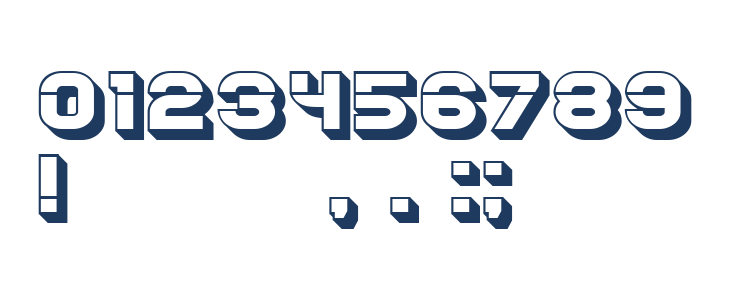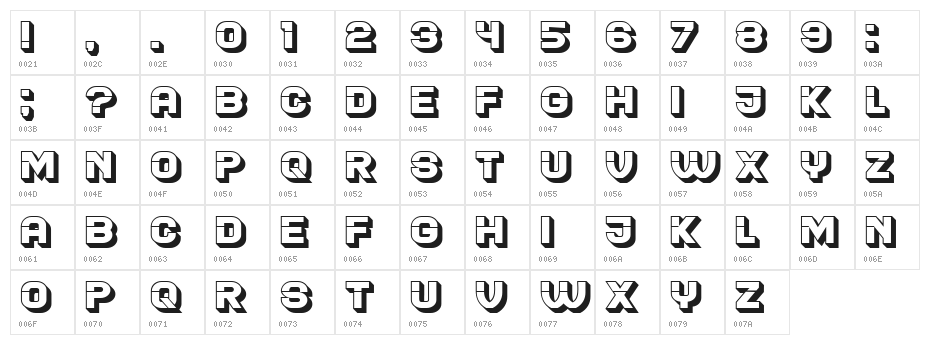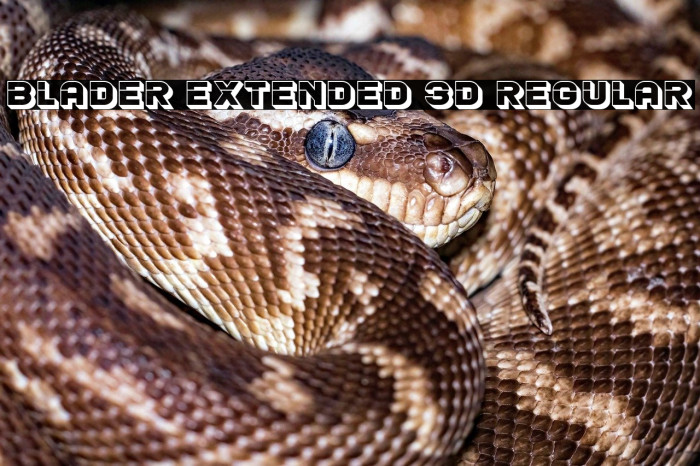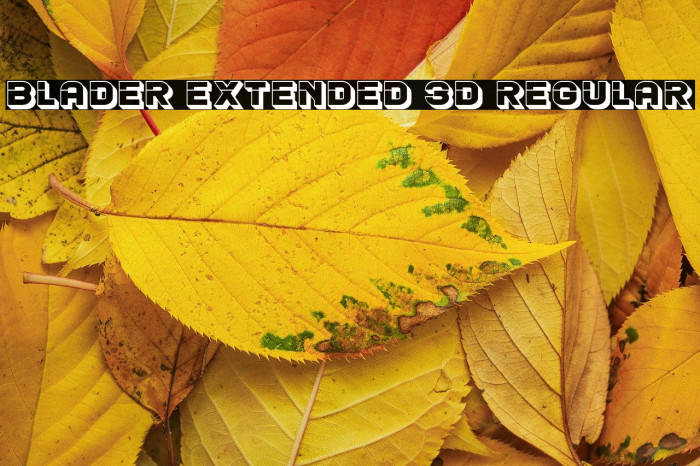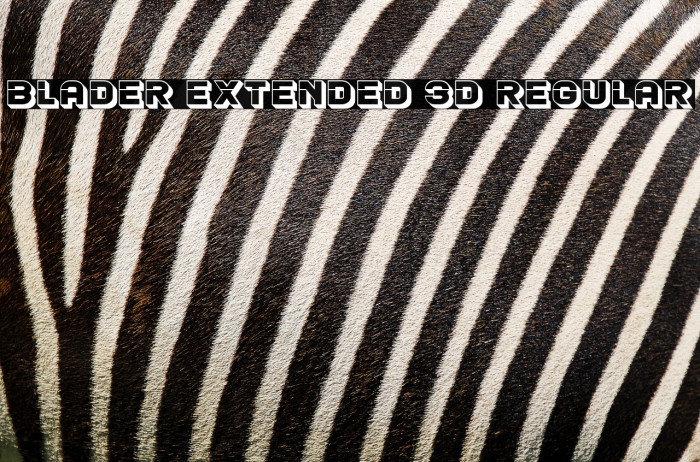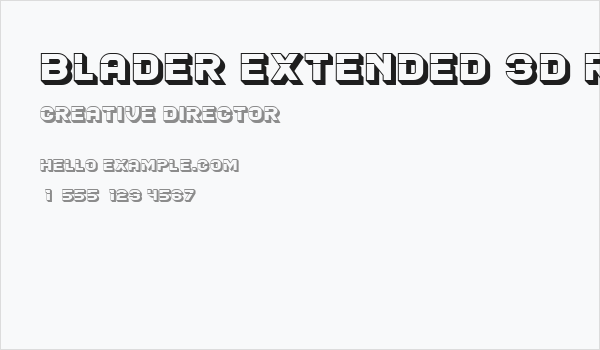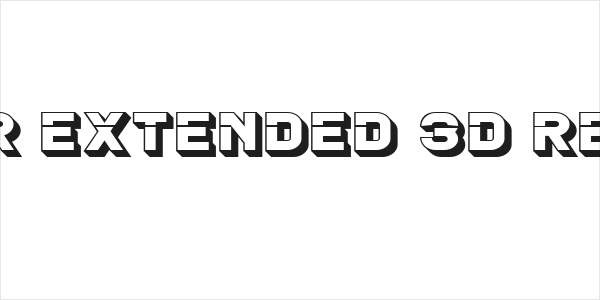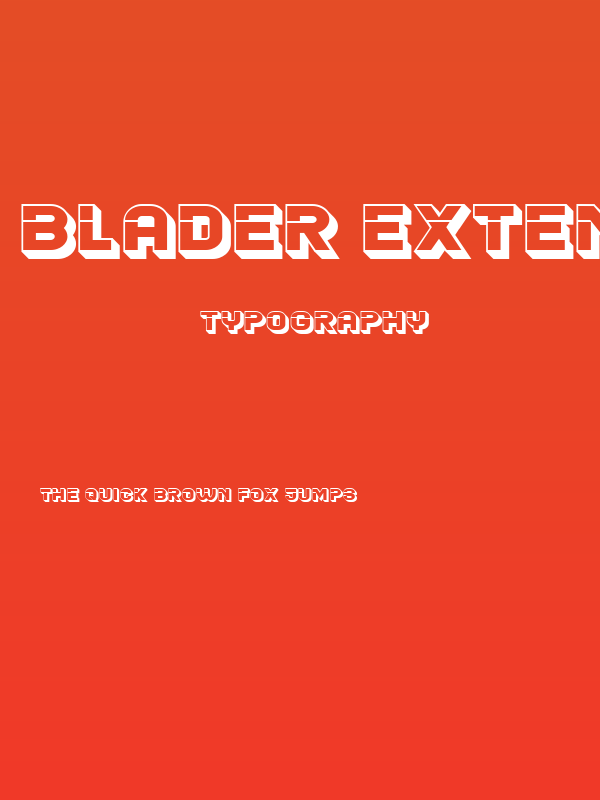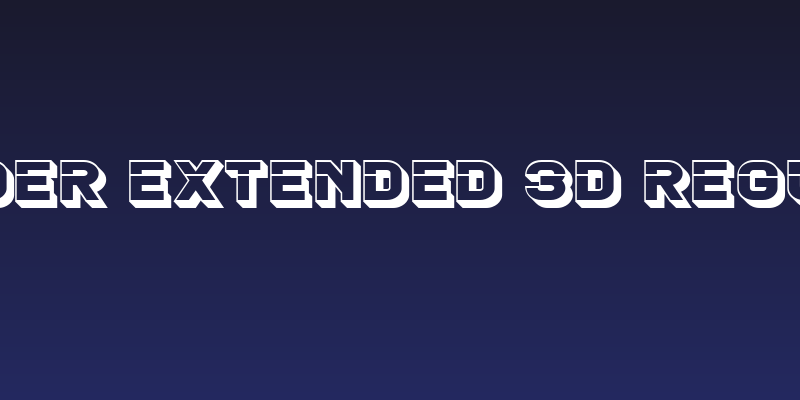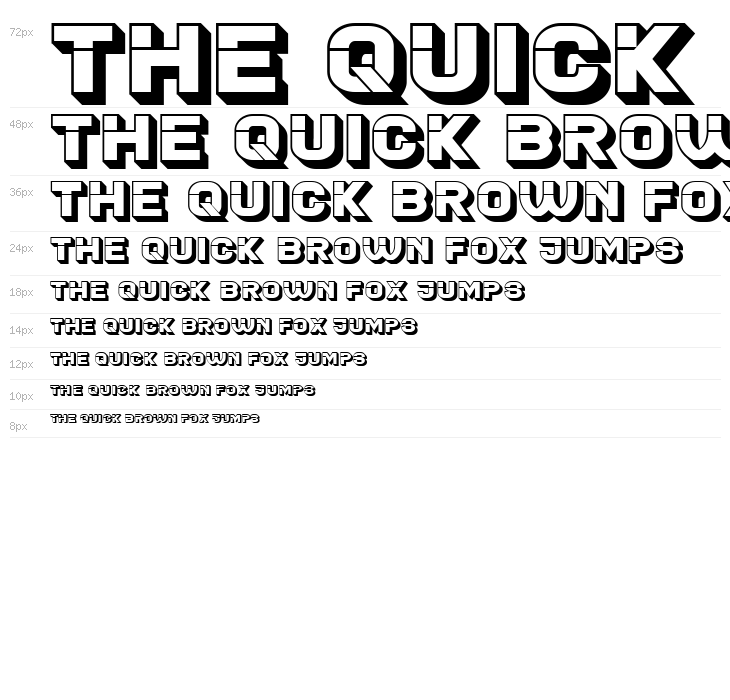
Blader Extended 3D Regular Font
Blader Extended 3D Regular Description
This font features a bold, three-dimensional design with an extended width, giving it a striking and impactful appearance. The characters are outlined with a thick black shadow, enhancing the 3D effect and providing a sense of depth. The uppercase letters are uniform in height and width, maintaining a consistent geometric structure. The numbers and special characters follow the same design principles, ensuring a cohesive look across all elements. This font's boldness and dimensionality make it ideal for attention-grabbing designs.
| Proposed Projects | Ideal for posters, headlines, logos, and any design requiring a bold, attention-grabbing typeface. |